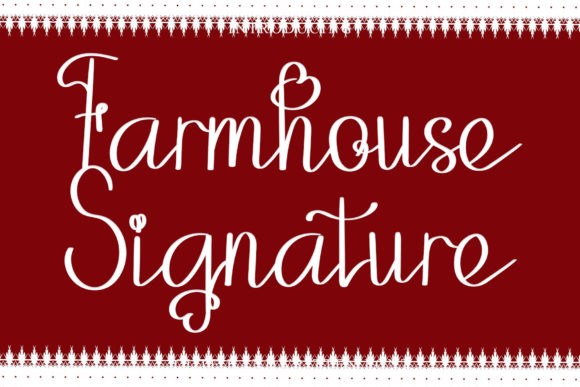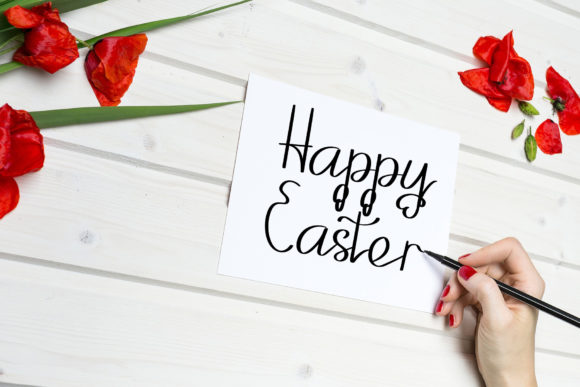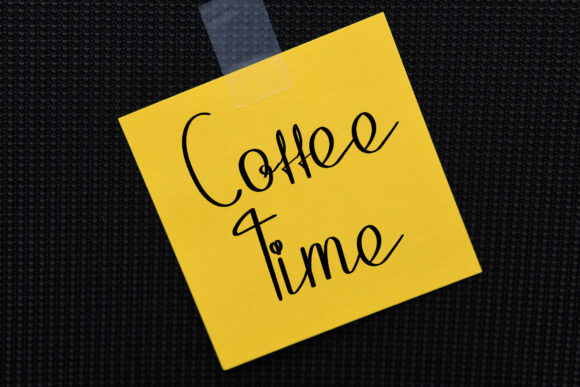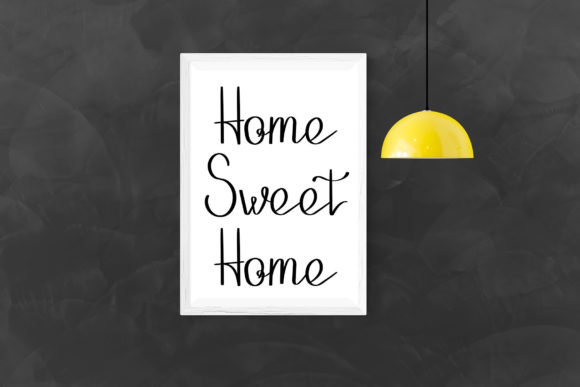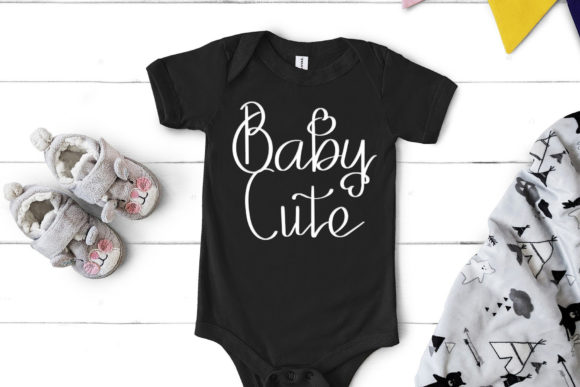
About Farmhouse Signature Font
Farmhouse Signature is a delicate, elegant, and flowing handwritten font that embodies a sense of grace and sophistication. With its beautiful and well-balanced characters, this font seamlessly complements a wide range of designs, making it a versatile choice.
The flowing lines and intricate details of Farmhouse Signature create an air of delicacy and refinement. Whether you’re designing wedding stationery, crafting feminine branding, or working on elegant typography projects, this font will add a touch of elegance and beauty.
Each character in Farmhouse Signature is meticulously crafted, resulting in a harmonious and visually pleasing typeface. Its balanced proportions and graceful curves contribute to a seamless reading experience and an overall polished look.
Introduce Farmhouse Signature to your most creative ideas and witness how it breathes life into them. This font has the power to enhance and elevate your designs, capturing attention and leaving a lasting impression. Whether used in digital or print mediums, Farmhouse Signature will add a touch of sophistication to your projects.
So, embrace the delicate beauty of Farmhouse Signature and let it inspire your creativity. Watch as your designs come alive with an added layer of elegance and charm, captivating your audience in the process.